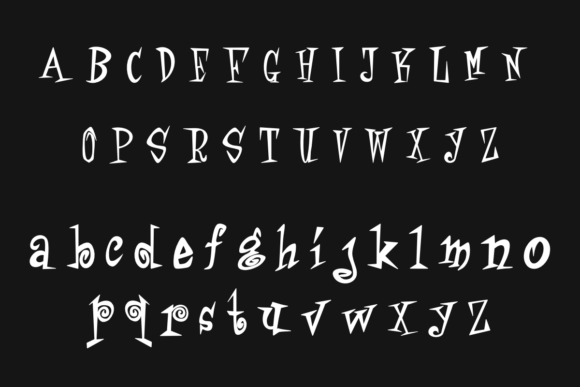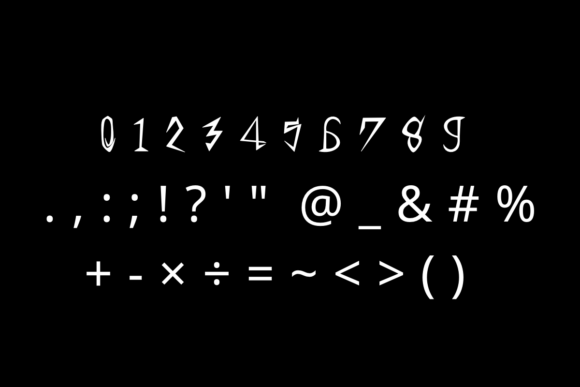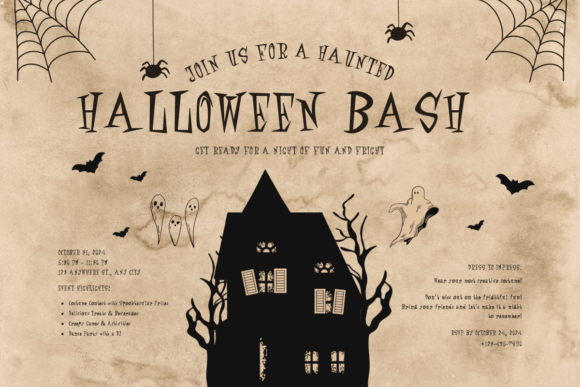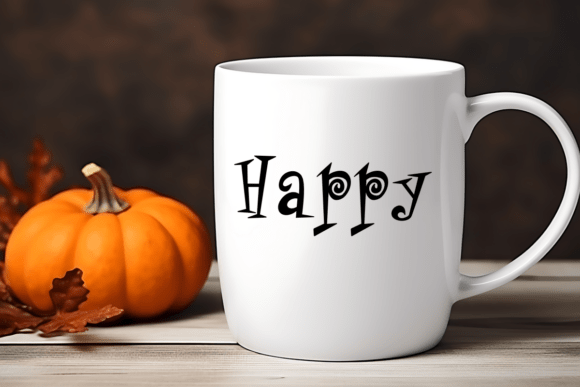
Unleash the Spooky Spirit with Halloween Serif Font
As the witching hour approaches, designers and crafters are on the lookout for the perfect typography to capture the essence of Halloween. Look no further than Halloween Serif, a quirky and eerie serif typeface that’s sure to cast a spell on your audience. With its sharp, exaggerated angles and playful uneven strokes, this font is the ideal choice for creating spooky posters, party invites, themed merchandise, and creepy titles that will leave a lasting impression.
The Haunted Charm of Halloween Serif
Halloween Serif is more than just a font – it’s an experience. It blends vintage flair with Halloween charm, resulting in a unique and captivating typography that’s perfect for the spookiest time of the year. The font’s sharp, exaggerated angles and playful uneven strokes evoke a sense of eeriness and foreboding, while its serif details add a touch of sophistication and elegance. Whether you’re designing a haunted house invitation or a spooky movie poster, Halloween Serif is sure to add an extra layer of creepiness and fun.
Halloween Serif is a versatile font that’s perfect for designers and crafters of all levels. Whether you’re creating digital content or handmade crafts, this font is sure to inspire your creativity and help you stand out from the crowd. Use it to create:
- Spooky party invitations that will set the tone for a haunted celebration
- Eerie posters that will grab attention and leave a lasting impression
- Themed merchandise, such as t-shirts, mugs, and tote bags, that will showcase your Halloween spirit
- Creeepy titles and headings that will add a touch of horror to your designs
Why Choose Halloween Serif?
With so many fonts to choose from, why settle for Halloween Serif? Here are just a few reasons why this font stands out from the rest:
- Unique and quirky design: Halloween Serif is unlike any other font out there. Its sharp, exaggerated angles and playful uneven strokes make it a true standout.
- Vintage flair: This font has a timeless quality that will transport your audience back to the good old days of Halloween.
- Eerie and playful: Halloween Serif strikes the perfect balance between spooky and fun, making it perfect for a wide range of Halloween-themed designs.
- Easy to use: This font is easy to read and works well in a variety of contexts, from digital content to print materials.
Tips for Using Halloween Serif
To get the most out of Halloween Serif, here are a few tips to keep in mind:
- Use it sparingly: While Halloween Serif is a great font, it can be overwhelming if used too much. Use it sparingly to add a touch of spookiness to your designs.
- Experiment with colors: Halloween Serif looks great in a variety of colors, from bold and bright to muted and eerie. Experiment with different colors to find the perfect look for your design.
- Pair it with other fonts: Halloween Serif pairs well with a variety of other fonts, from sans-serif to script fonts. Experiment with different pairings to find the perfect combination for your design.
Halloween Serif is a unique and captivating font that’s perfect for designers and crafters looking to add a touch of spookiness to their Halloween-themed designs. With its sharp, exaggerated angles and playful uneven strokes, this font is sure to cast a spell on your audience and leave a lasting impression. So why settle for a boring, generic font when you can unleash the spooky spirit with Halloween Serif?